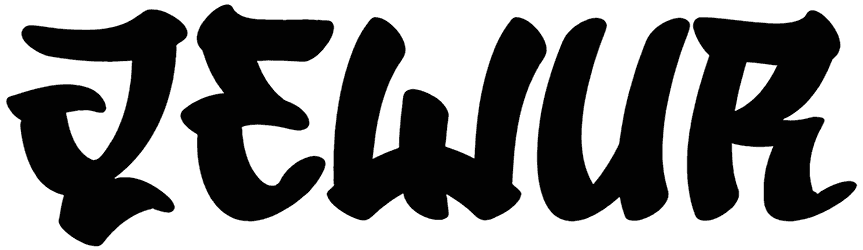
Qewur Font
In today’s globalized world, you can use Qewur to attract your audience from East Asia and keep those interested in these angular lines for yourself. Through its timeless beauty and complex design, this ninja font can help you hold power and communicate with people, and convey meaning without relying on numbers.
So whether you’re a designer, writer, or art lover, this external font offers plenty of inspiration and creativity to explore new designs for posters, packaging, and apparel.